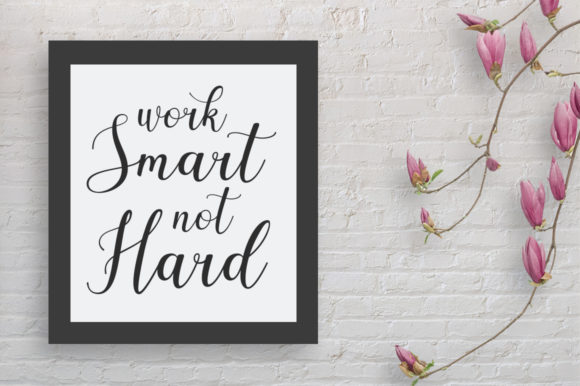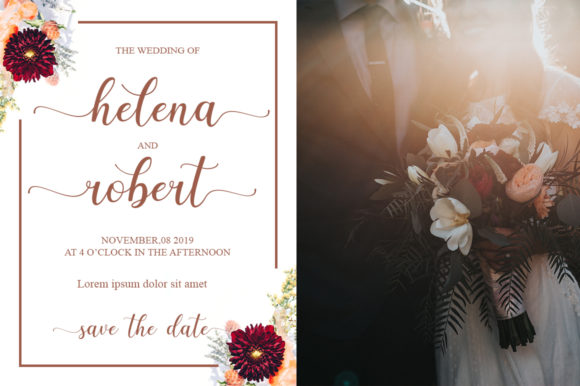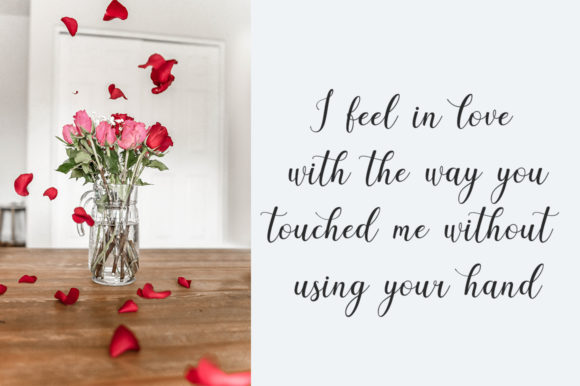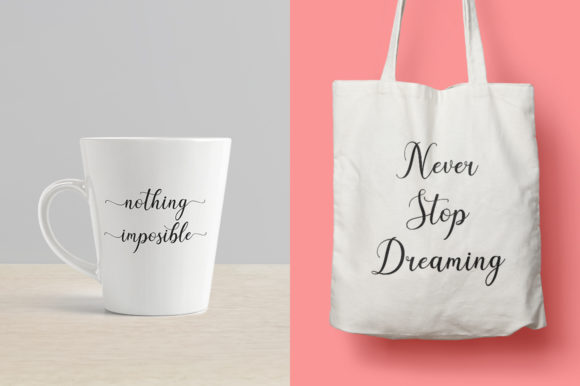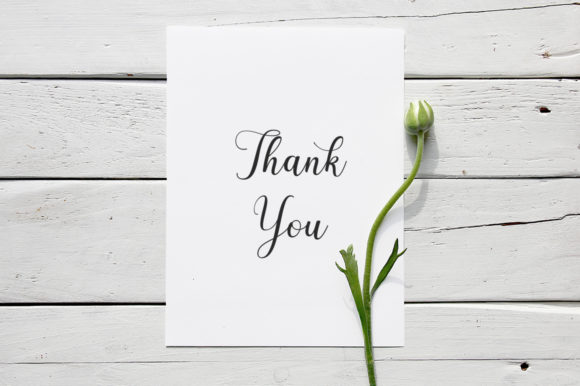
Dellisa Font: Elevate Your Designs with Modern Calligraphy
In the world of typography, few fonts capture the essence of elegance and sophistication as beautifully as Dellisa. This modern and stunning calligraphy font has taken the design community by storm, offering a versatile and creative solution for a wide range of projects. Whether you’re a designer, crafty DIY enthusiast, or simply someone who appreciates beautiful typography, Dellisa is sure to inspire.
What Makes Dellisa So Special?
Dellisa is more than just a font; it’s a statement piece. Its modern calligraphy style exudes a sense of luxury, making it perfect for projects that demand a touch of sophistication. Here are a few reasons why Dellisa stands out:
- Modern Aesthetic: Dellisa boasts a contemporary look that instantly elevates any design. Its flowing lines and elegant curves give it a fresh and trendy feel.
- Versatility: This font is incredibly versatile. Whether you’re working on a wedding invitation, a quote, a clothing label, or an apparel design, Dellisa fits seamlessly into any project.
- Readability: Despite its ornate appearance, Dellisa remains highly readable, making it suitable for both short phrases and longer texts.
Dellisa’s flexibility makes it an excellent choice for numerous applications. Here are some popular uses for this beautiful font:
- Wedding Invitations: Add a touch of romance and sophistication to your wedding invites with Dellisa. Its elegant style sets the tone for a memorable event.
- Quotes and Posters: Make your quotes and posters stand out with Dellisa. The font’s modern calligraphy style adds a layer of depth and emotion to your messages.
- Clothing and Apparel: Elevate your fashion designs with a font that’s both stylish and on-trend. Dellisa can be used for logos, labels, or even direct-to-garment printing.
- Digital and Print Media: Whether you’re creating social media graphics, flyers, or brochures, Dellisa brings a level of professionalism and beauty to your designs.
Tips for Using Dellisa Effectively
To get the most out of Dellisa, consider the following tips:
- Pair with Simpler Fonts: For maximum impact, pair Dellisa with a simpler, sans-serif font for contrast. This combination creates visual interest and ensures readability.
- Play with Colors: Dellisa looks stunning in metallic colors, pastels, or bold hues. Experiment with different color schemes to find the perfect match for your design.
- Adjust Letter Spacing: To enhance readability, especially for longer texts, adjust the letter spacing. This ensures your design remains elegant and easy to read.
Dellisa is a game-changer for designers and crafters looking to add a modern, elegant touch to their projects. With its beautiful calligraphy style, versatility, and readability, it’s no wonder Dellisa has become a favorite among typography enthusiasts. Whether you’re designing wedding invitations, quotes, clothing, or apparel, Dellisa is sure to elevate your work to new heights. So why wait? Explore the possibilities of Dellisa today and discover how this stunning font can transform your designs.